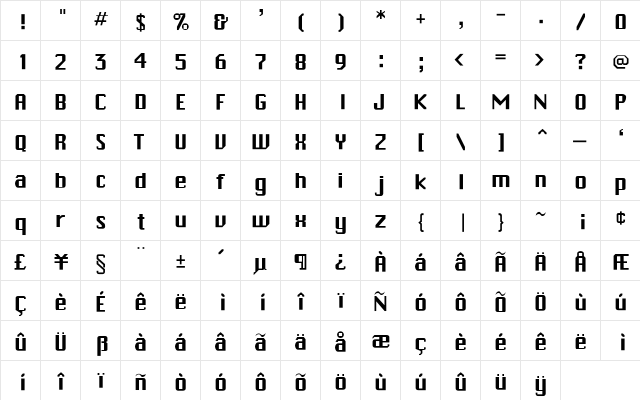
ChiTown-Light Regular
Design Context for ChiTown-Light Typeface
ChiTown-Light offers clean, dependable letterforms without strong stylistic allegiance, making it a practical choice for designers who need flexibility. Its slender proportions lend an understated elegance to any composition.